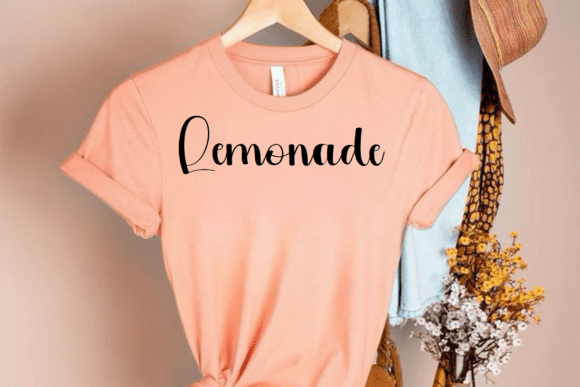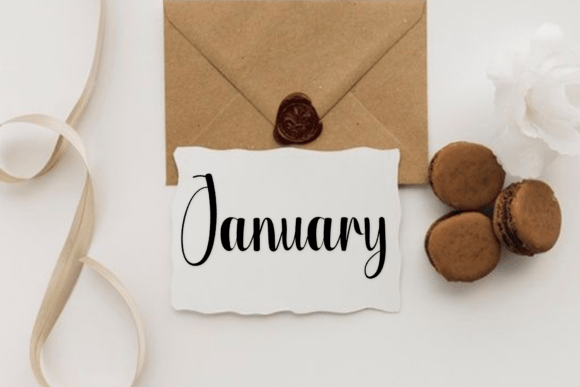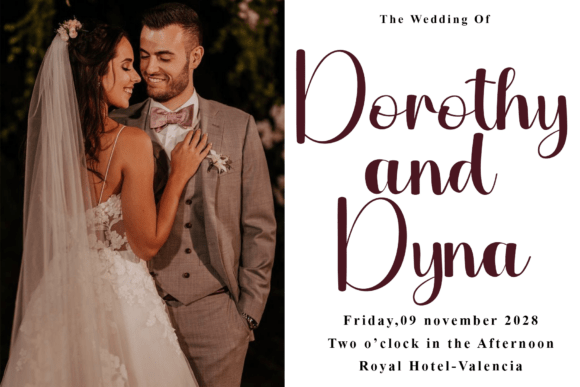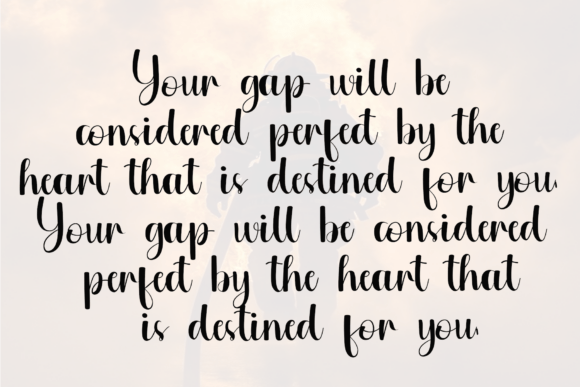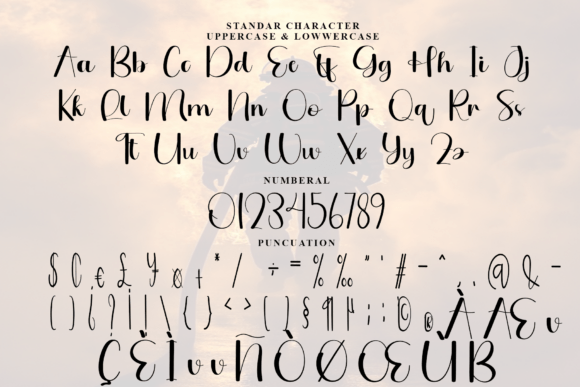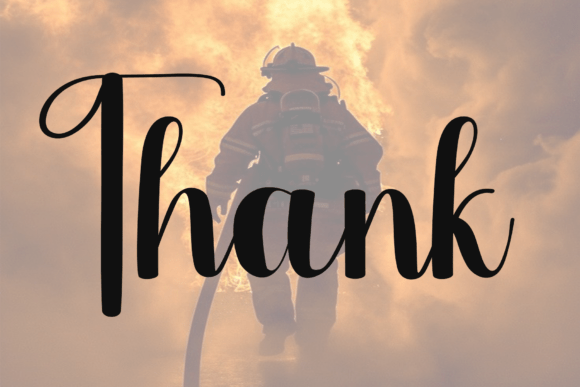
Introducing Firefighter Font: The Perfect Blend of Organic Charm and Strong Typographic Presence
Are you a designer or crafter looking for a font that can add a touch of personality to your outdoor lifestyle branding, organic product packaging, travel-themed graphics, or rustic event invitations? Look no further than Firefighter Font, a stylish handwritten typeface that blends organic charm with a strong typographic presence.
What Makes Firefighter Font Unique?
Firefighter Font features thick, solid strokes with a distinct “bouncy” rhythm that gives it a friendly and approachable character. Its well-balanced proportions ensure it remains impactful even in busy designs, making it the perfect choice for projects that require a strong visual statement. Part of the “Unique and Professional” collection, this typeface is designed to help you create stunning visuals that stand out from the crowd.
The Perfect Choice for Outdoor Lifestyle Branding
Outdoor lifestyle branding requires a font that can evoke a sense of adventure and freedom. Firefighter Font is perfectly suited for this type of branding, with its rugged yet refined character that can add a touch of sophistication to any design. Whether you’re creating a logo for a outdoor gear company or designing a brochure for a national park, Firefighter Font is the perfect choice.
Organic Product Packaging
Organic product packaging requires a font that can convey a sense of naturalness and authenticity. Firefighter Font’s organic charm and strong typographic presence make it an excellent choice for packaging design. Its thick, solid strokes and bouncy rhythm give it a friendly and approachable character that can help to establish a connection with your target audience.
Travel-Themed Graphics
Travel-themed graphics require a font that can evoke a sense of adventure and excitement. Firefighter Font is perfectly suited for this type of design, with its rugged yet refined character that can add a touch of sophistication to any graphic. Whether you’re creating a poster for a travel company or designing a website for a tourism board, Firefighter Font is the perfect choice.
Rustic Event Invitations
Rustic event invitations require a font that can convey a sense of warmth and hospitality. Firefighter Font’s organic charm and strong typographic presence make it an excellent choice for rustic event invitations. Its thick, solid strokes and bouncy rhythm give it a friendly and approachable character that can help to create a sense of excitement and anticipation for your event.
Why Choose Firefighter Font?
- Well-Balanced Proportions: Firefighter Font’s well-balanced proportions ensure that it remains impactful even in busy designs.
- Organic Charm: Firefighter Font’s organic charm gives it a friendly and approachable character that can help to establish a connection with your target audience.
- Strong Typographic Presence: Firefighter Font’s strong typographic presence makes it perfect for designs that require a bold and statement-making font.
In conclusion, Firefighter Font is a stylish handwritten typeface that blends organic charm with a strong typographic presence. Its unique character and well-balanced proportions make it the perfect choice for outdoor lifestyle branding, organic product packaging, travel-themed graphics, and rustic event invitations. Whether you’re a designer or crafter, Firefighter Font is an excellent addition to your font collection.